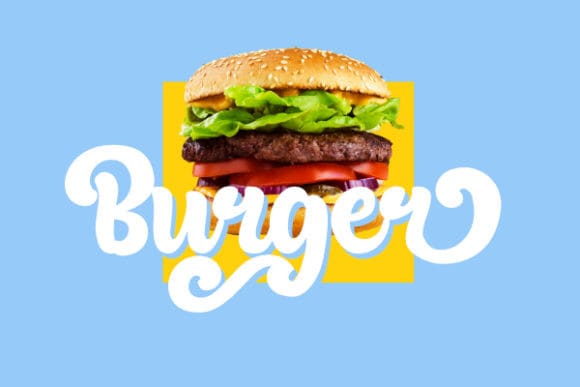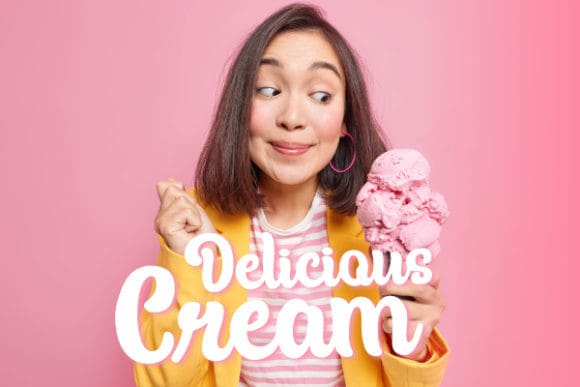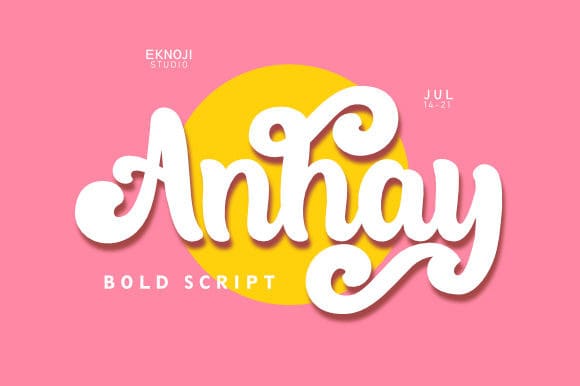
Anhay Retro Font
Anhay Retro Font is a whimsical and genuine display font. Expertly designed to make your creation look out of this world, this font will look gorgeous on a variety of ideas. Anhay is PUA encoded which means you can access all glyphs and swashes with ease!